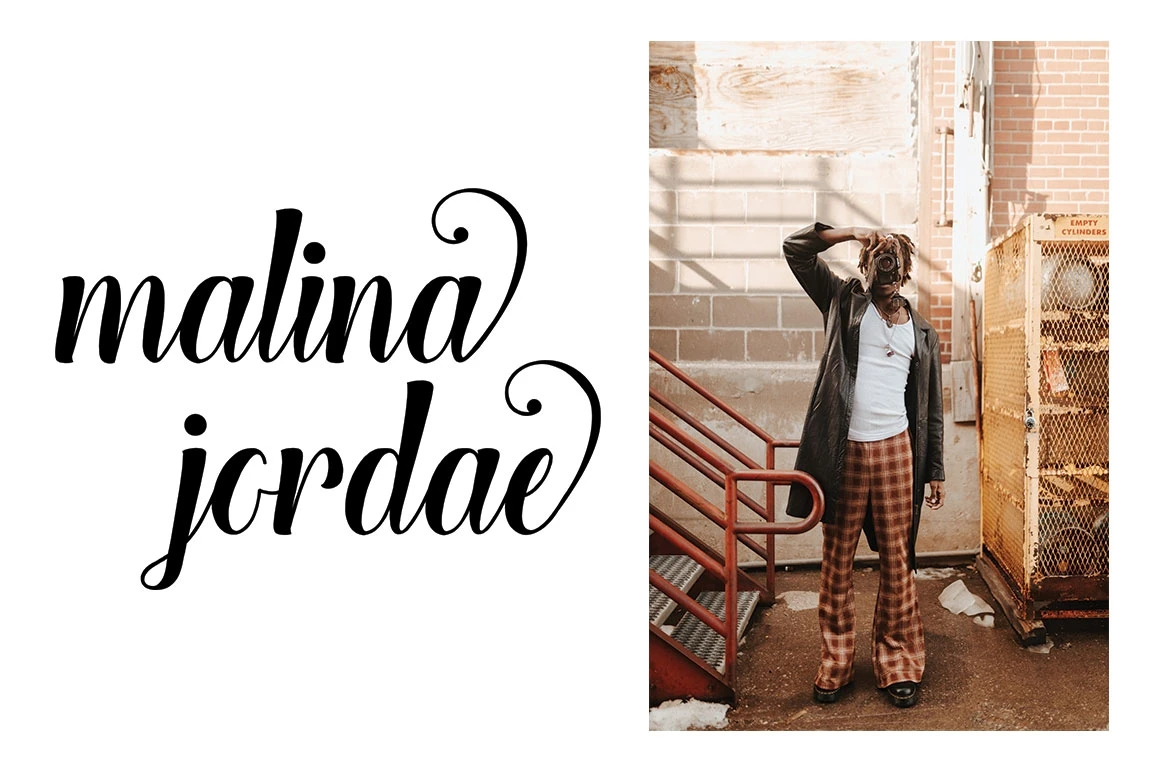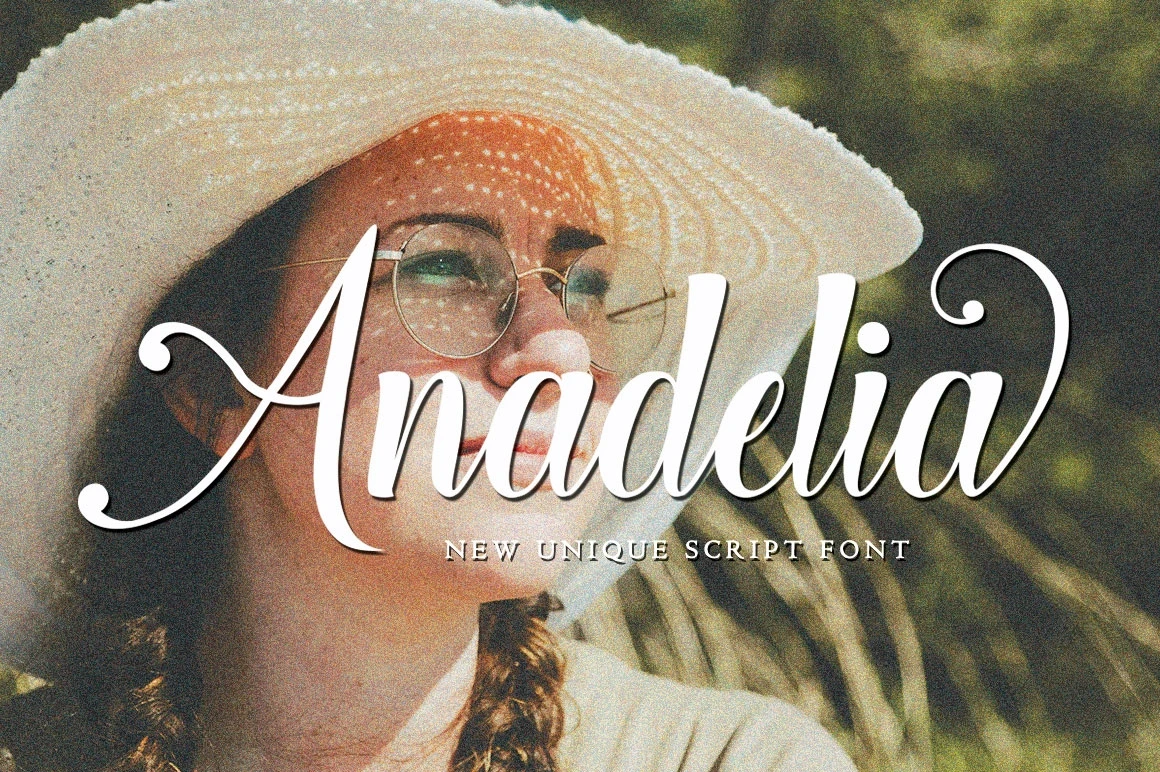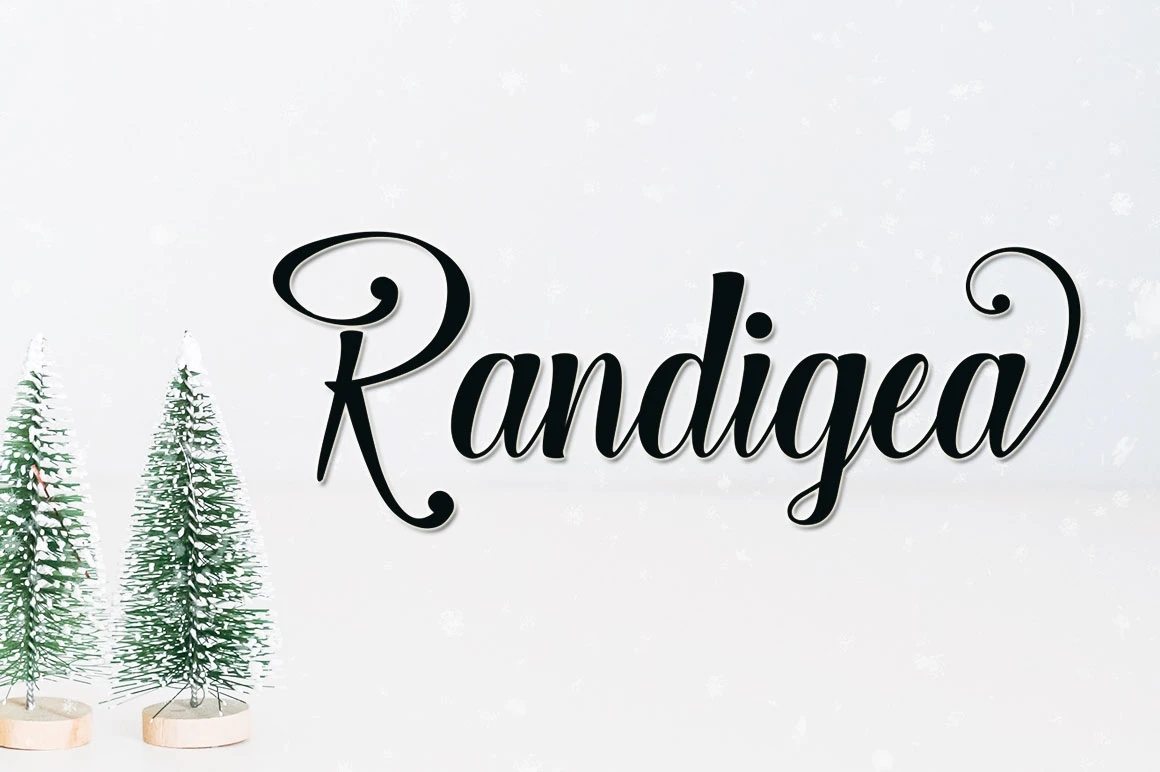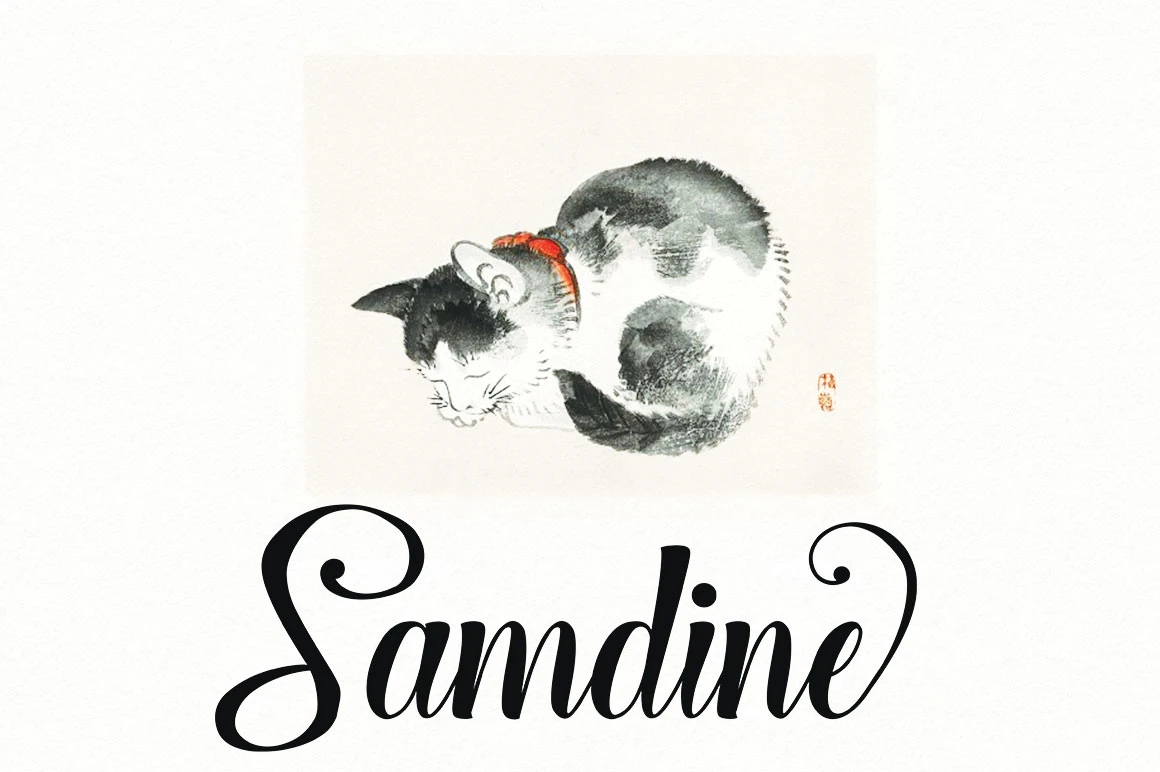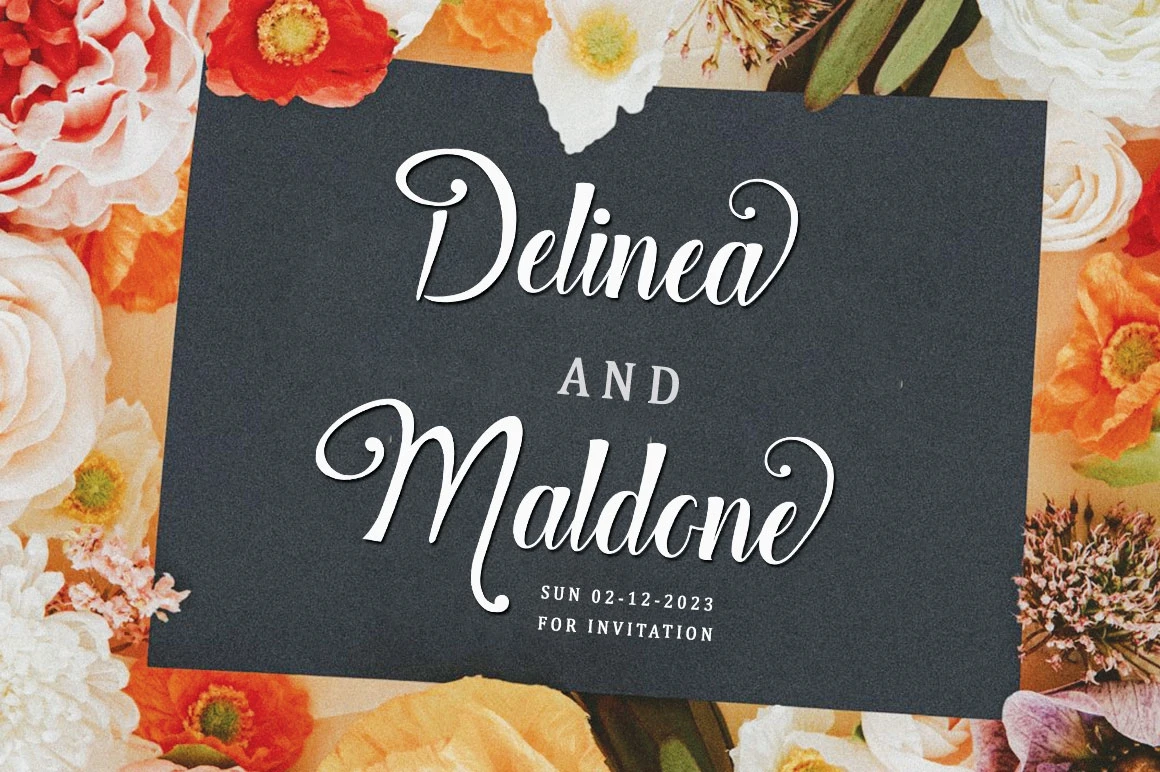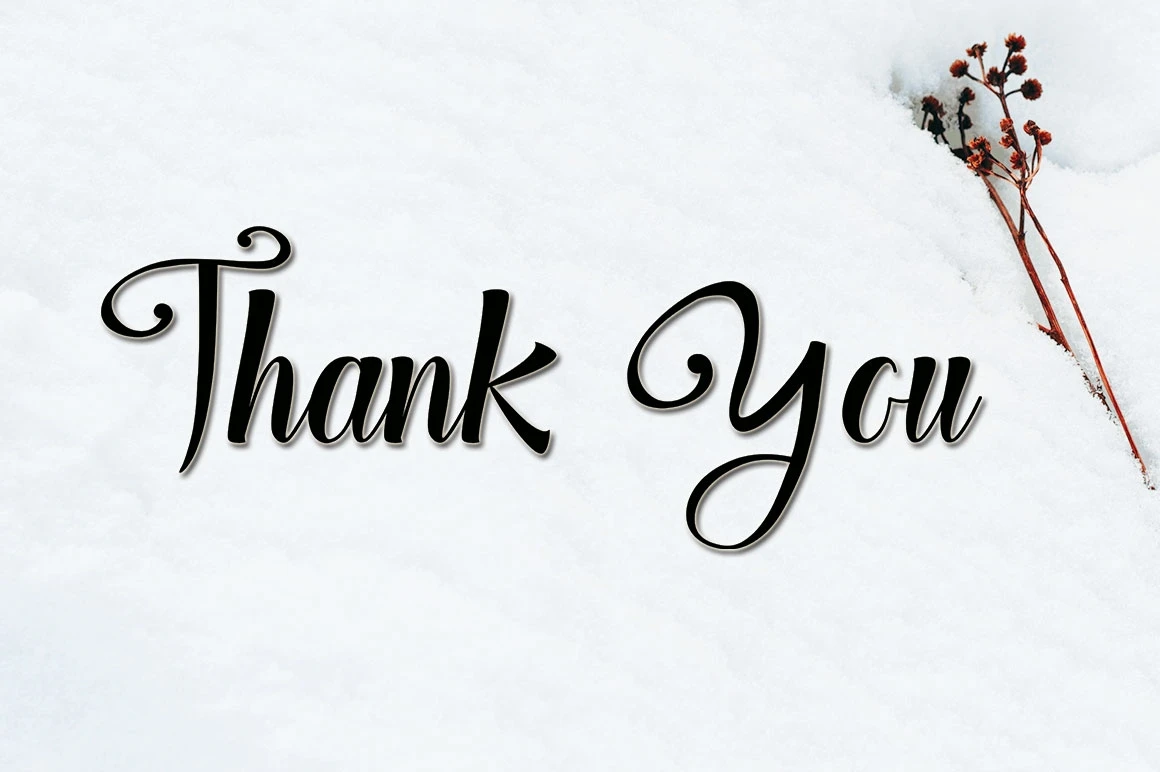
Anadelia Script Font
Anadelia is an amazing typeface handmade script font that we created in freestyle for those of you who do work and craft.
It's perfect for any type of work you do with multiple purposes such as logos, wedding invitations, titles, t-shirts, letterheads, signage, labels, news, posters, badges, etc.